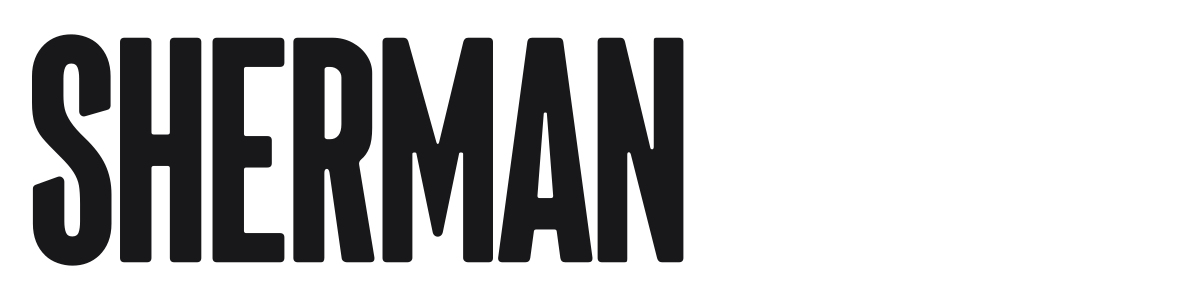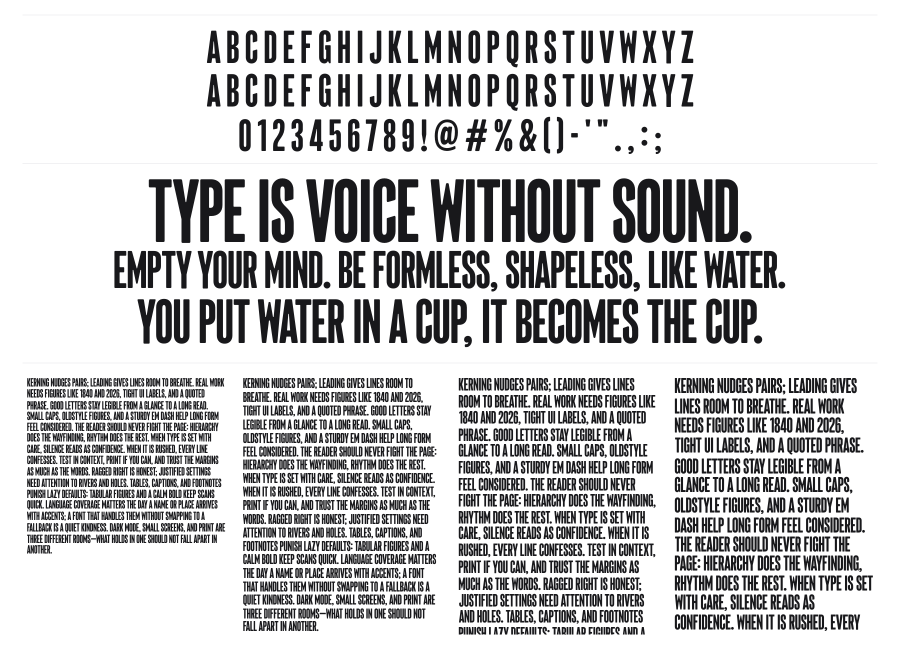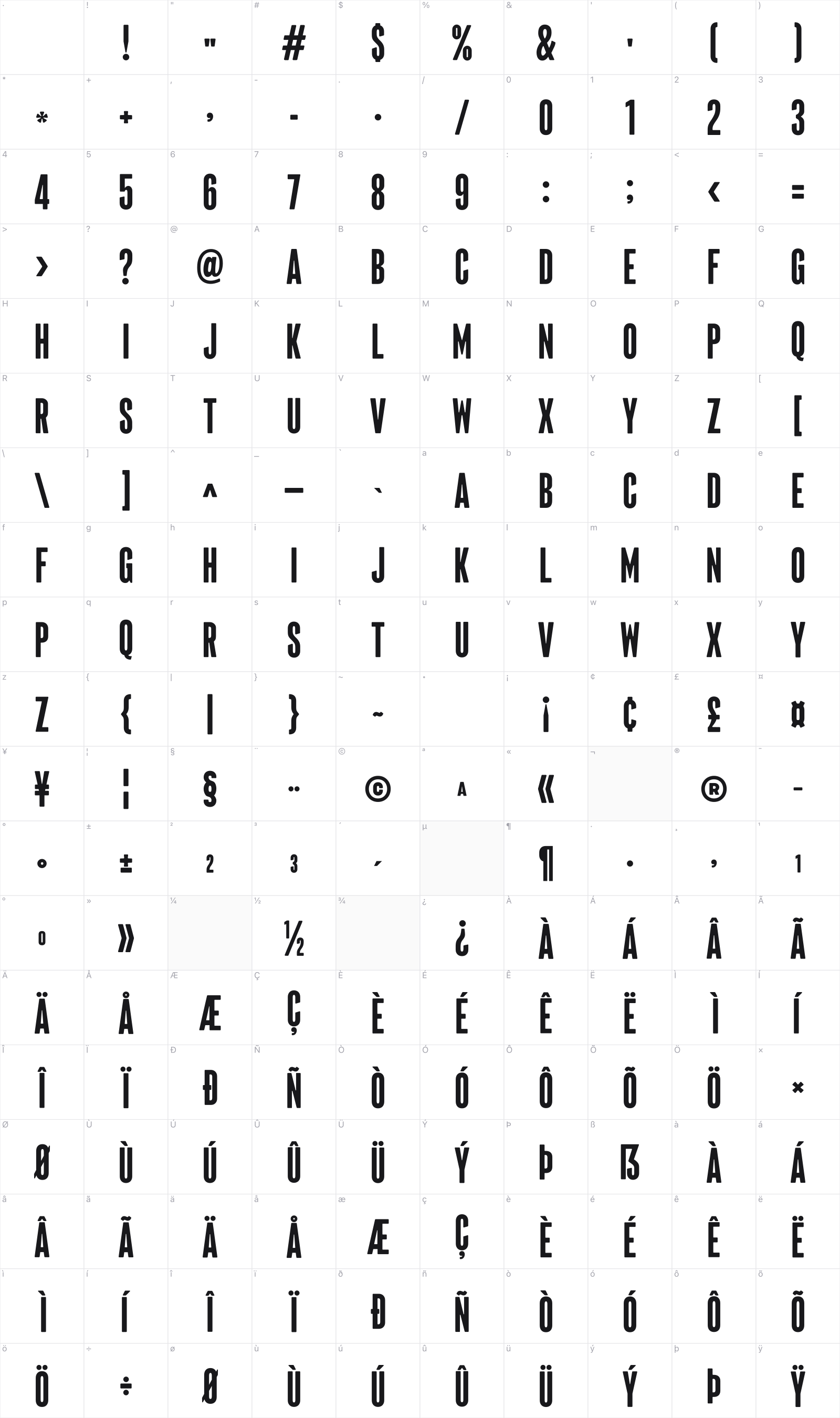
Sherman
by Ellen Luff
Sherman is a bold, ultra-condensed all-caps sans-serif built for headlines that need weight without aggression. Slanted terminals and rounded ink traps give it a personality that sets it apart from generic compressed grotesques, keeping things warm even at large, imposing sizes. Strong in print and on screen, it suits branding, signage, and editorial titles that need to hold a room.